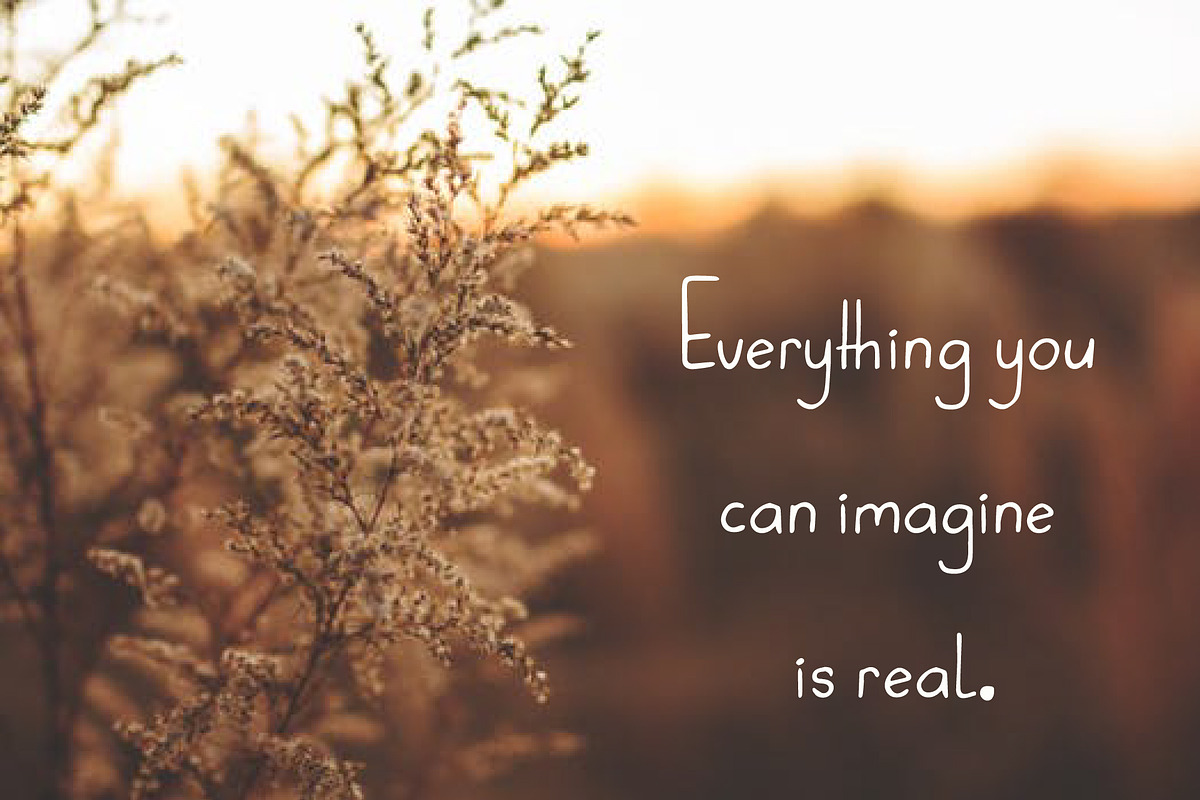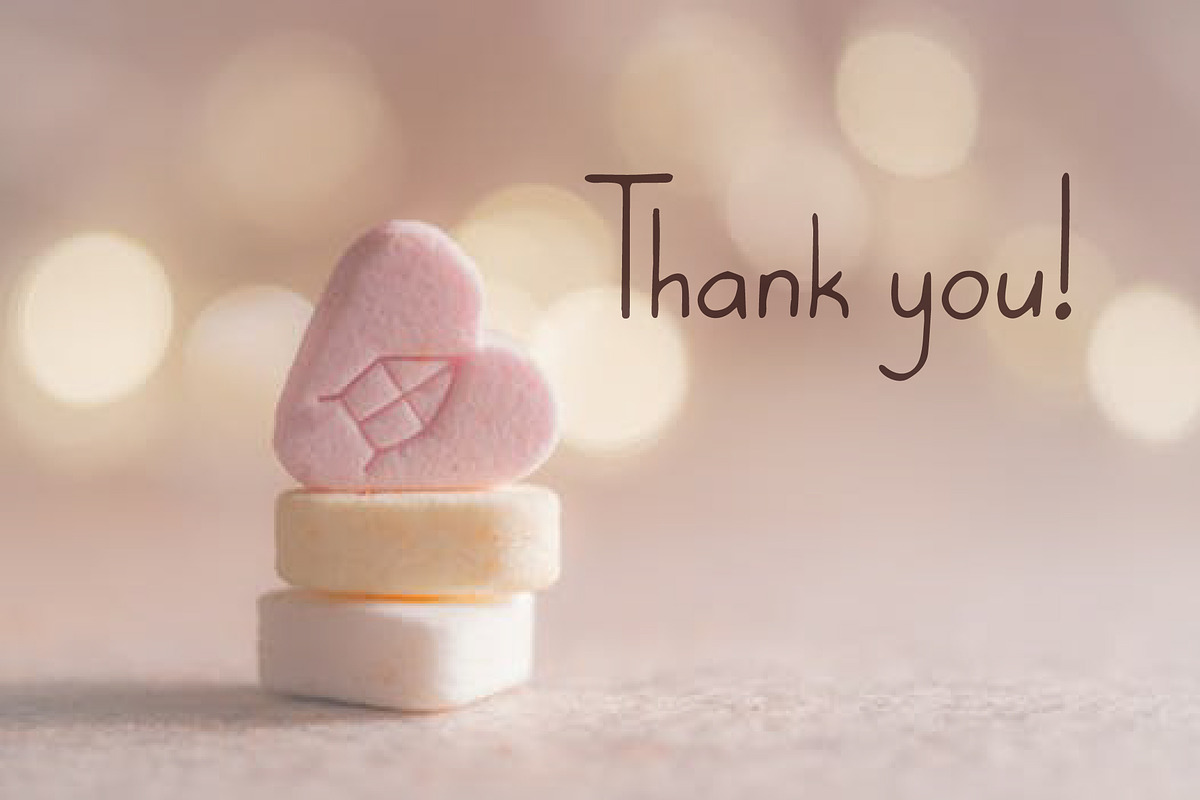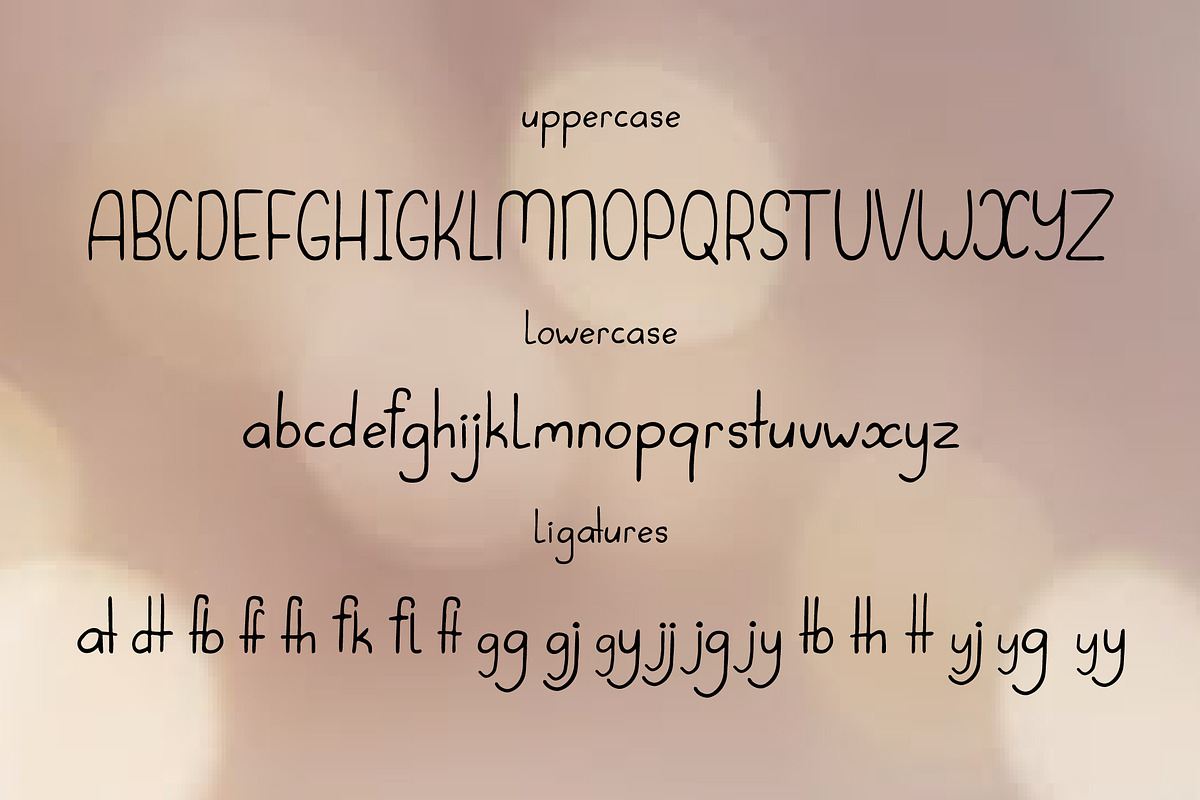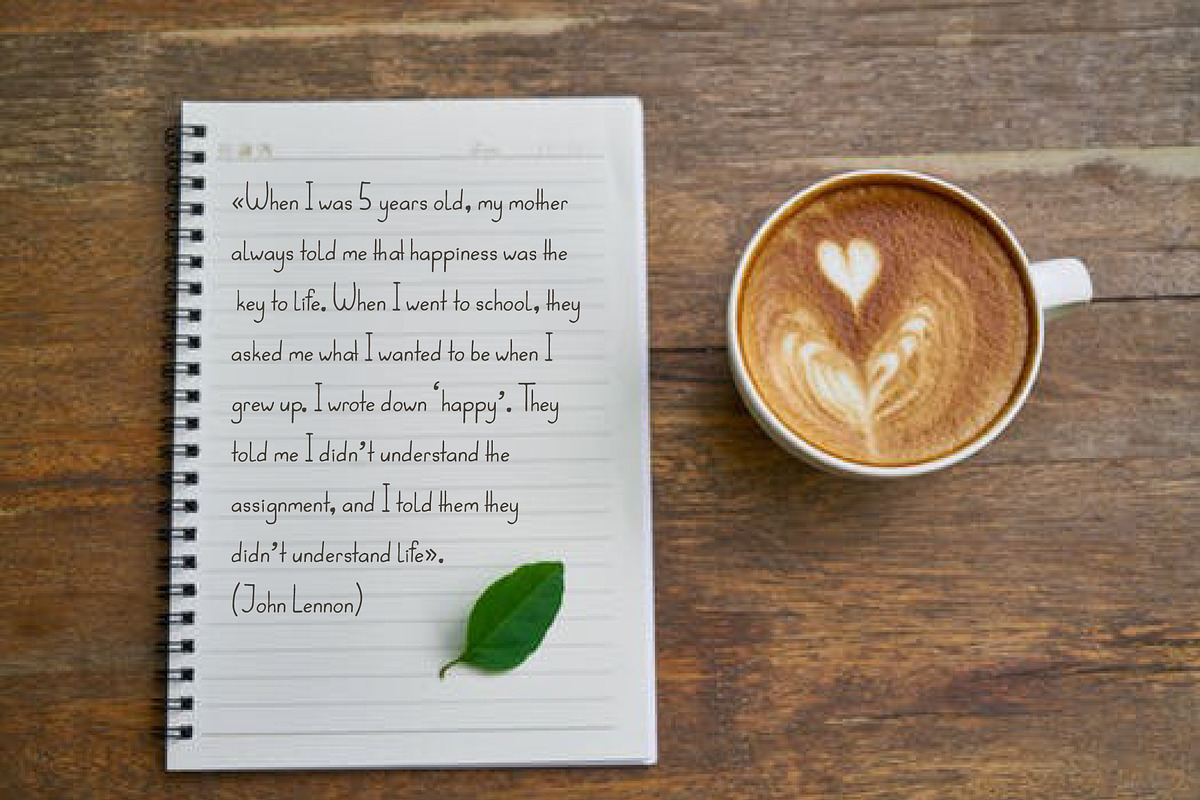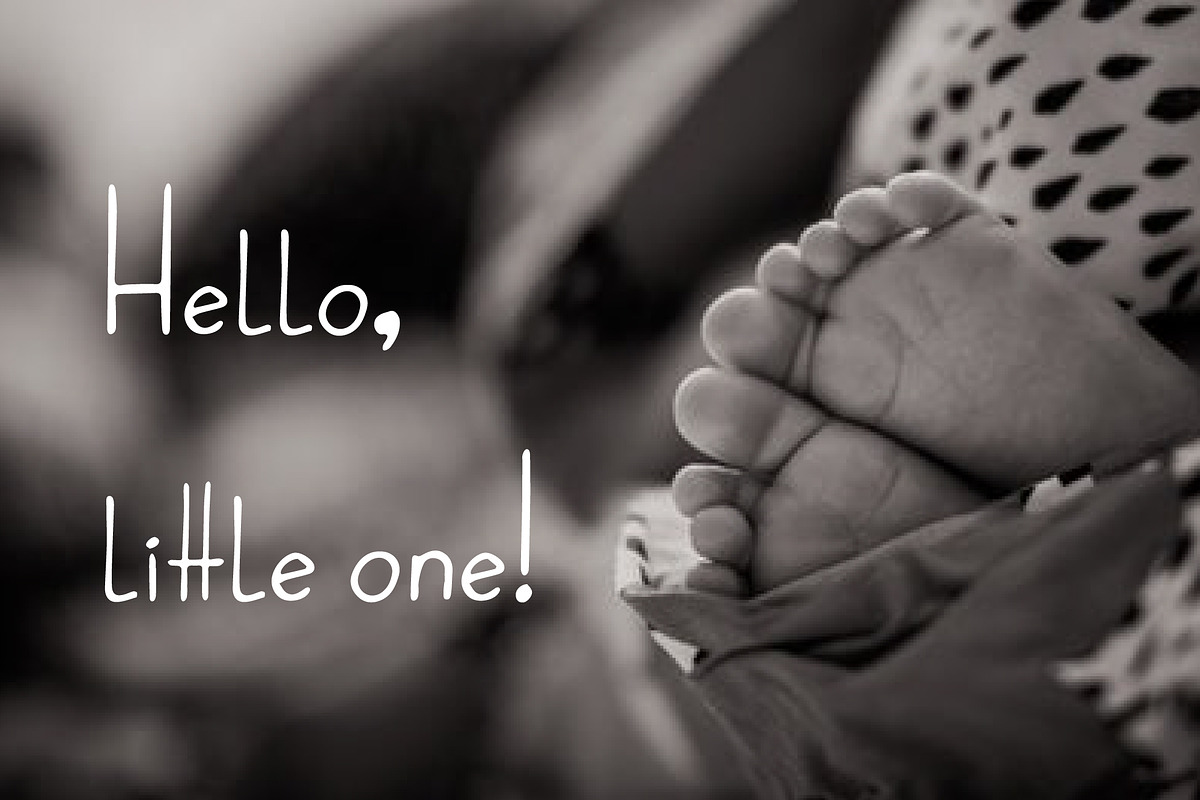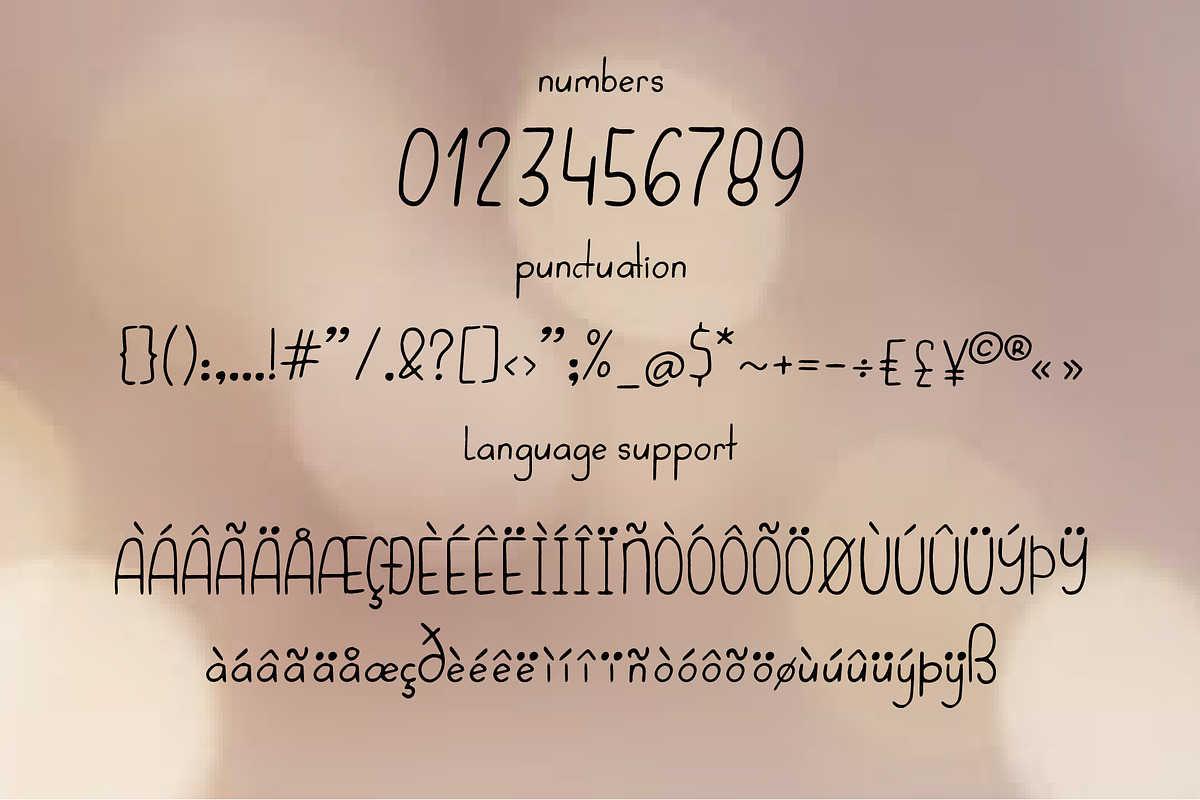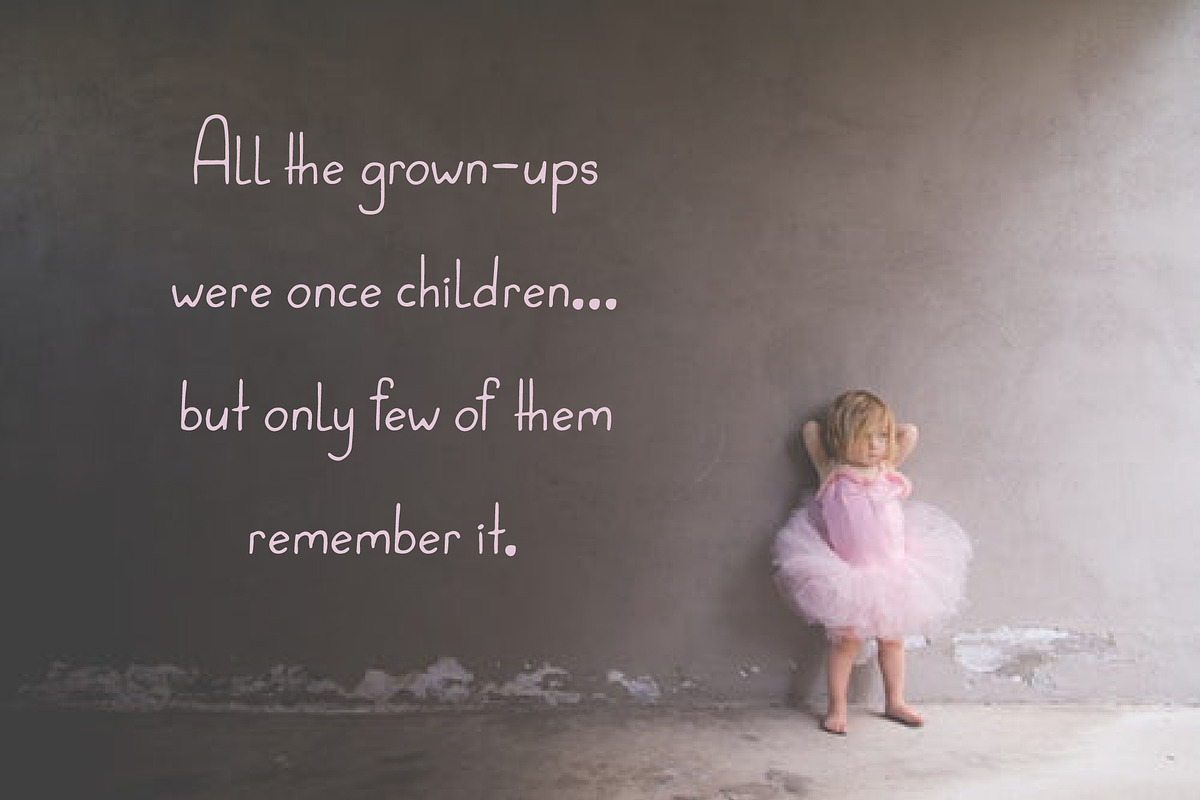
Questo - Handwritten Font
I'm happy to introduce you my new font Questo. This font is perfect for magazine typography, kid’s posters, invitations, book cover design and other. Questo is handdrawn san serif font with language support.